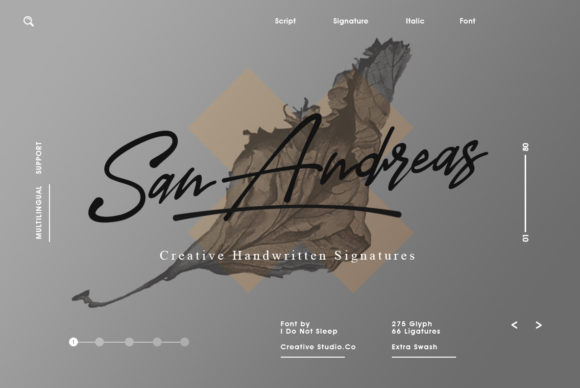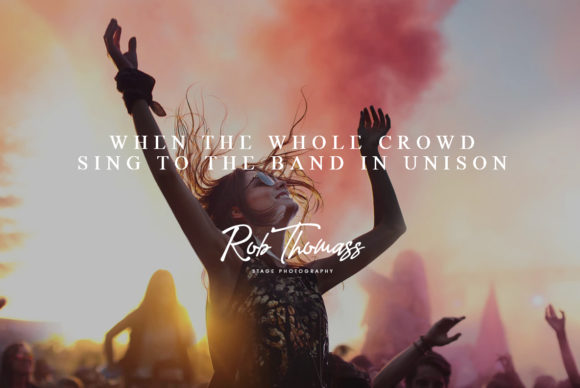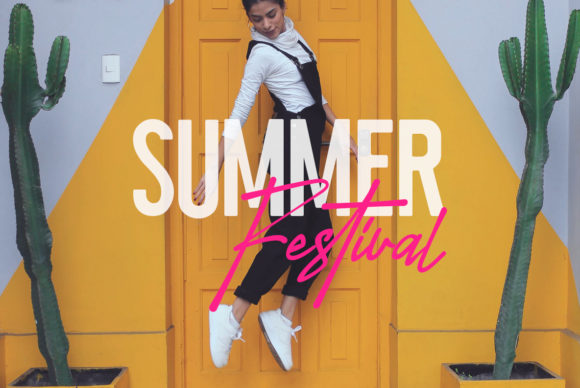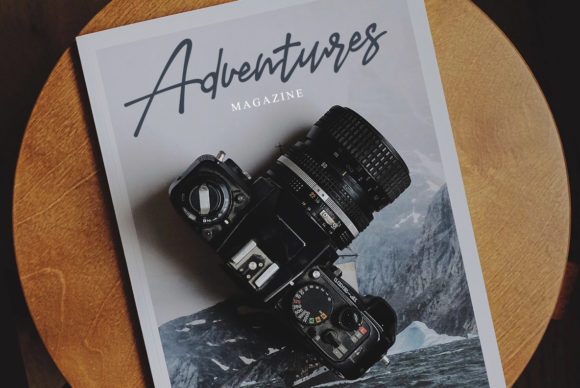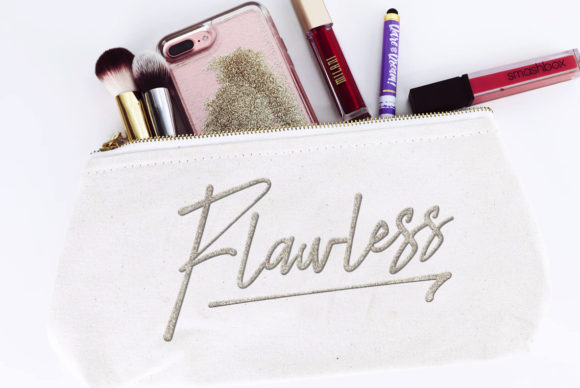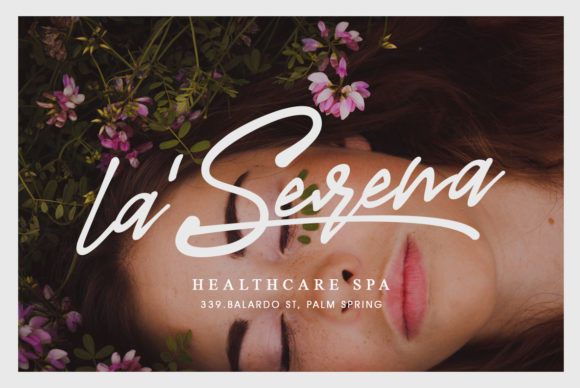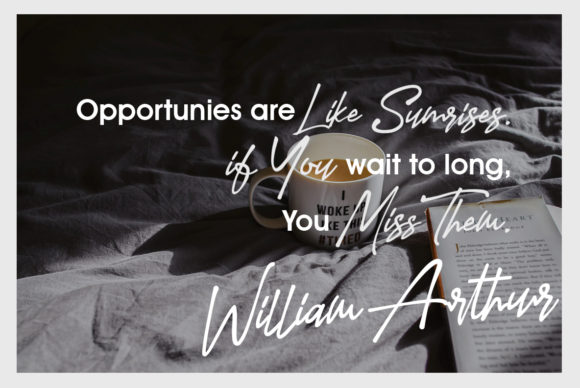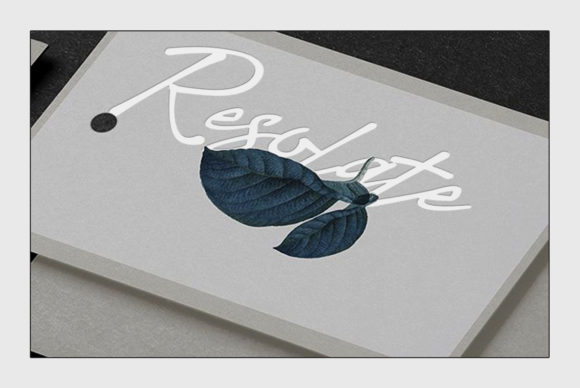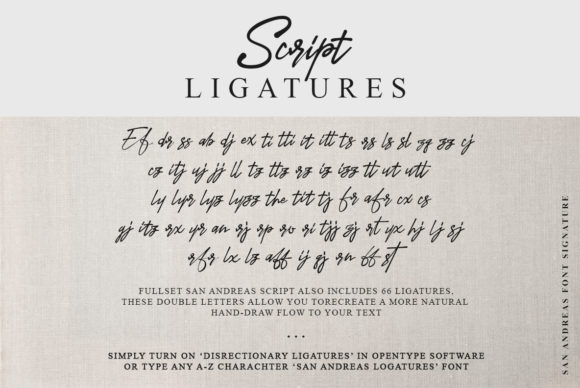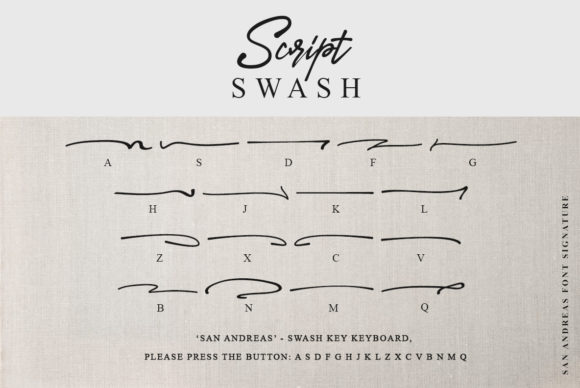
San Andreas Font
About San Andreas Font
The San Andreas is a creative handwritten font. It’s perfect for branding logos which need a signature style.
It has a smooth texture, so it’s perfect for all types of printing techniques + embroidery, laser cutting, gold foil, etc.
There are lots of ligatures included to keep the handwriting effect maximal.